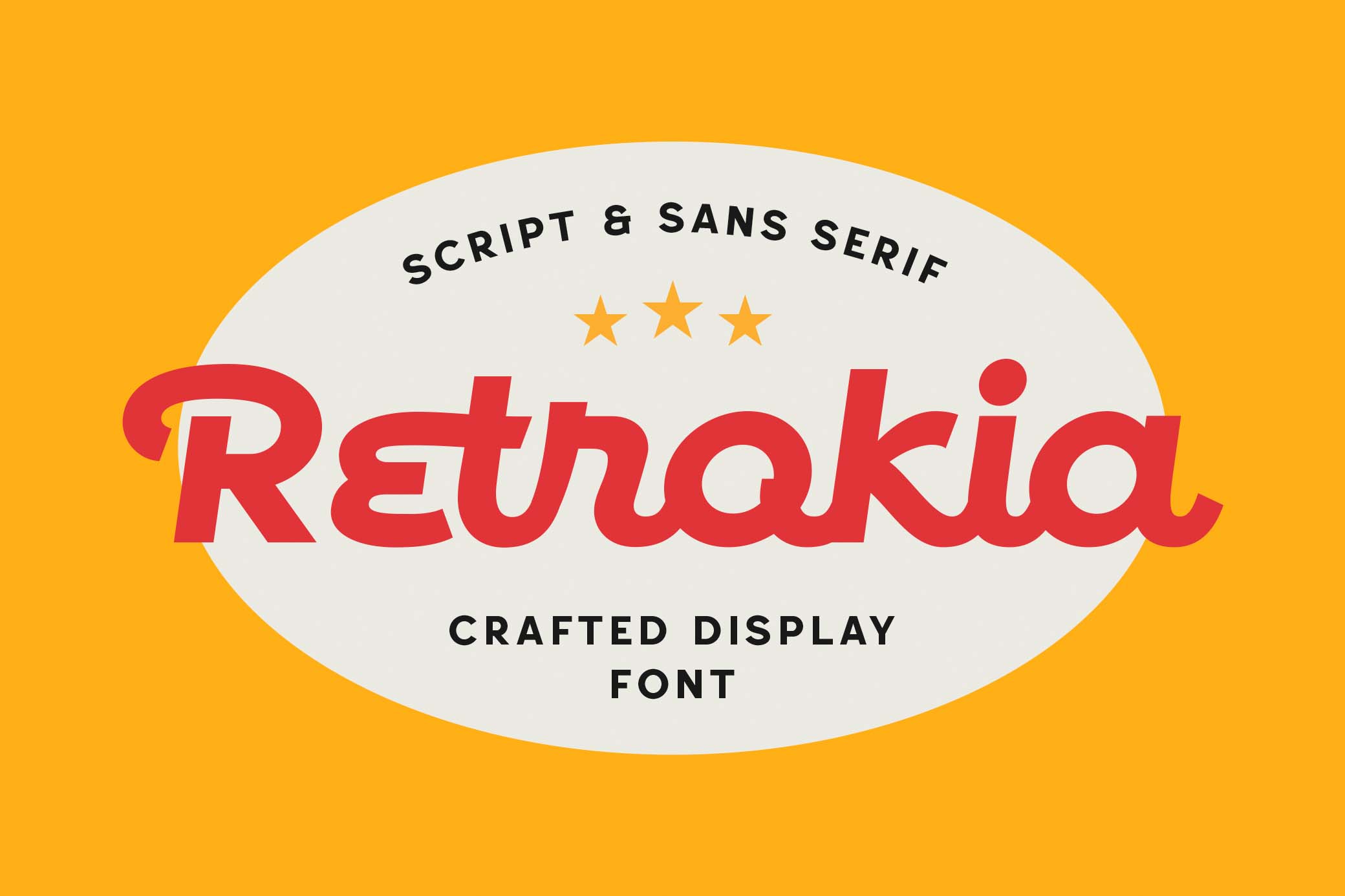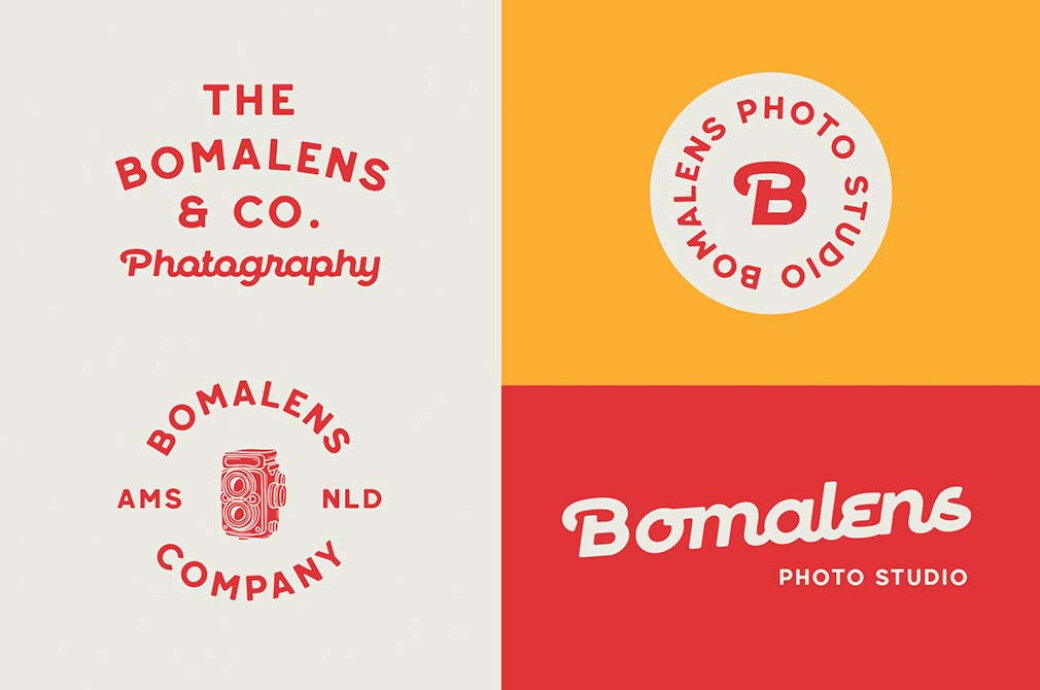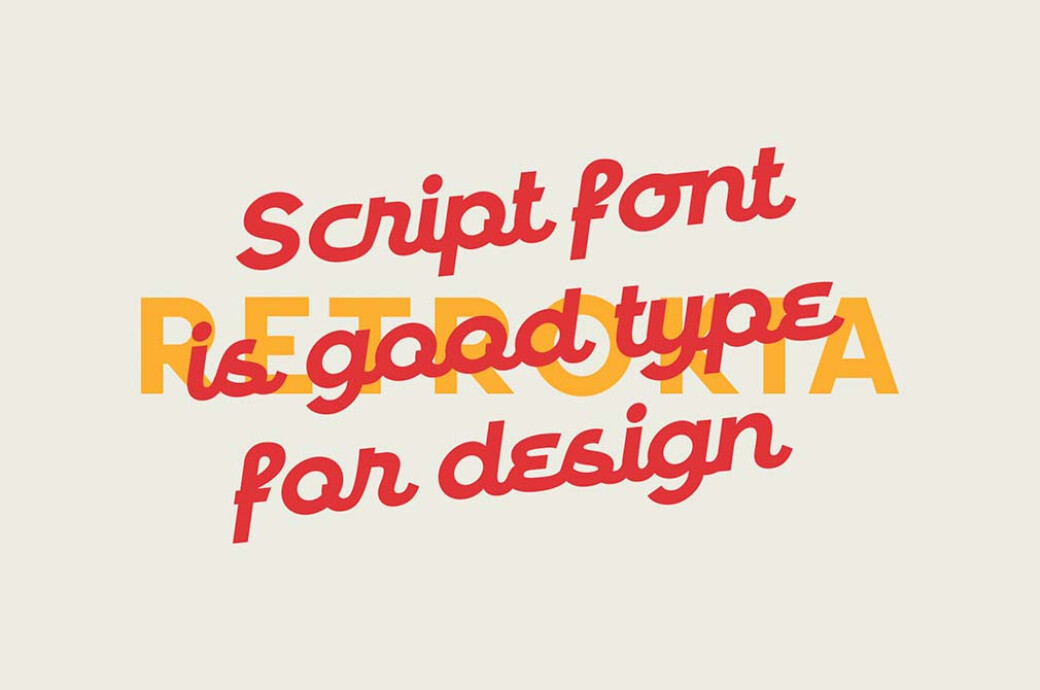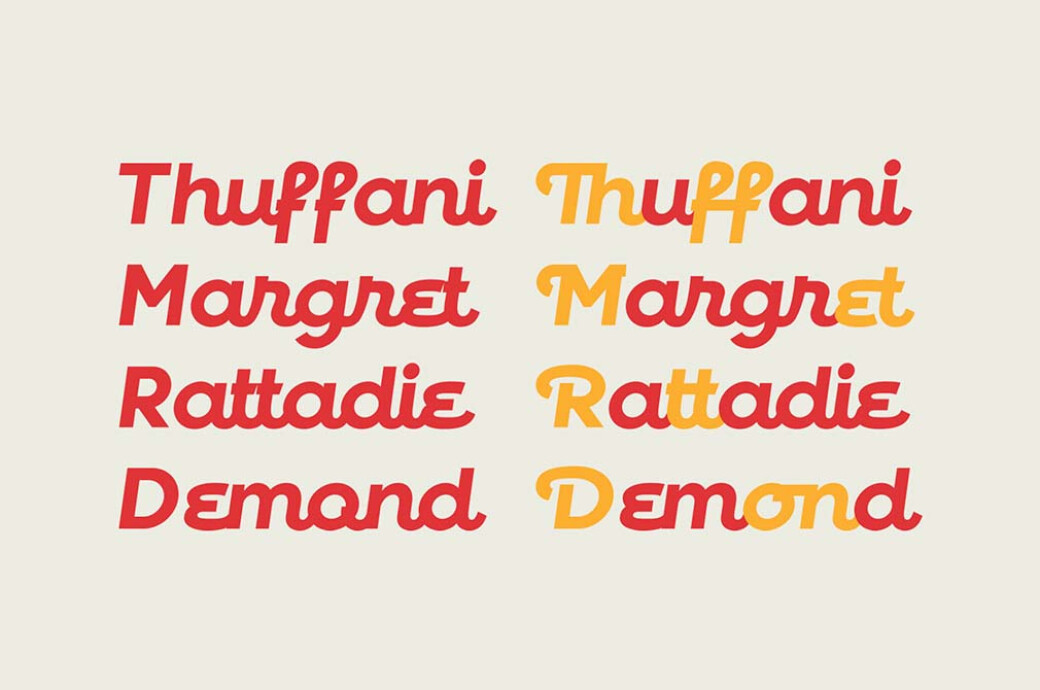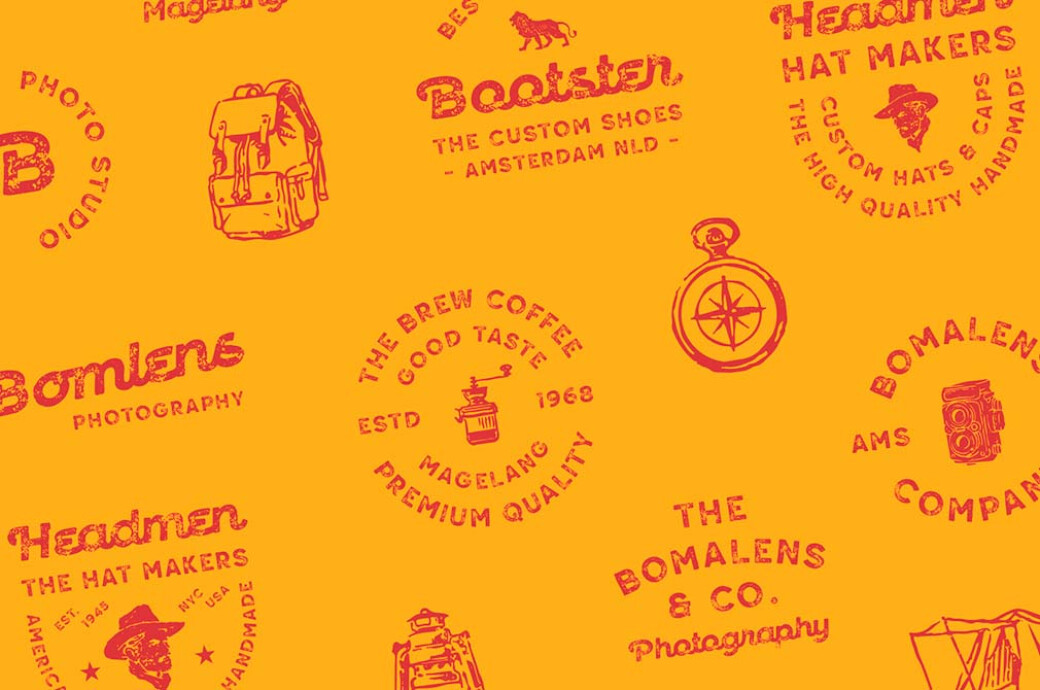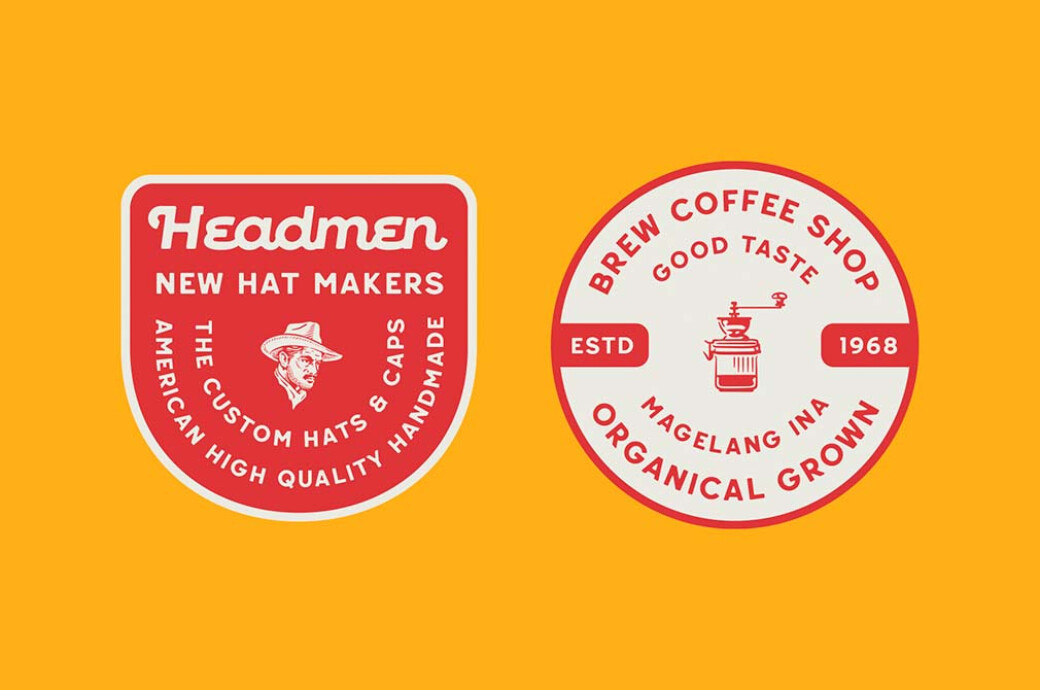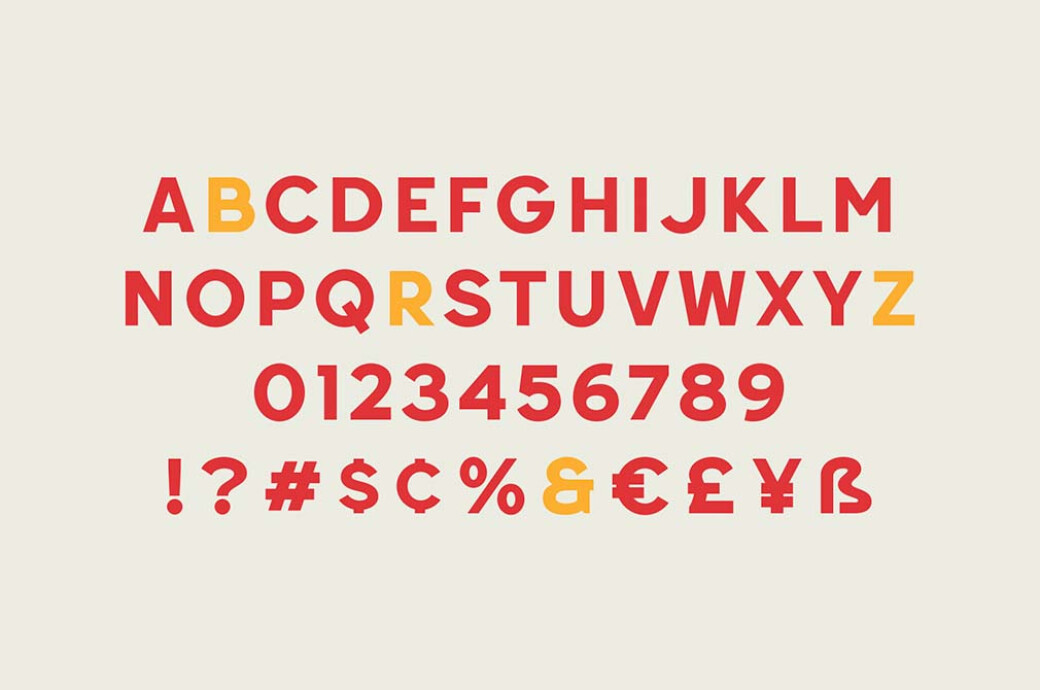
Retrokia Display Font
Welcome to the 60s! The world's hoping for a better tomorrow, and graphic design's taking a fresh twist! This vibe is so easy to catch with this script type, Retrokia.Oh yeah, meet a font inspired by old movie posters and 60s advertising, Retrokia. It's a display font collection that features a script and a sans serif for perfectly balanced retro logos, signages, labels, branding or whatever. Every font comes in 4 styles (regular, rounded, rough, and textured). Retrokia script font includes some alternates and ligatures to make your designs even more personalized and versatile.